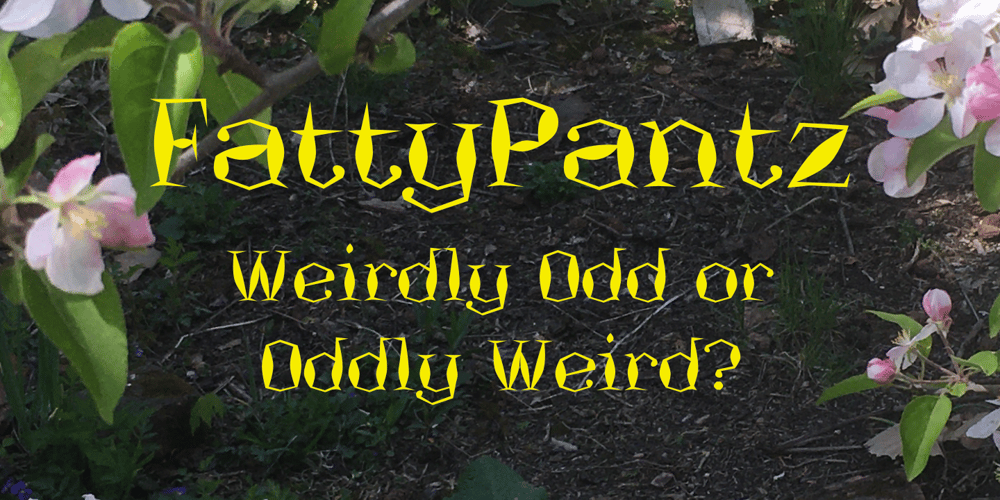
Fatty Pantz Font Family was designed by Robert Schenk and published by Ingrimayne Type. Fatty Pantz contains 1 styles and family package options. FattyPans is a strange, bizarre font with spiky serifs that bulges where letters are not supposed to bulge.